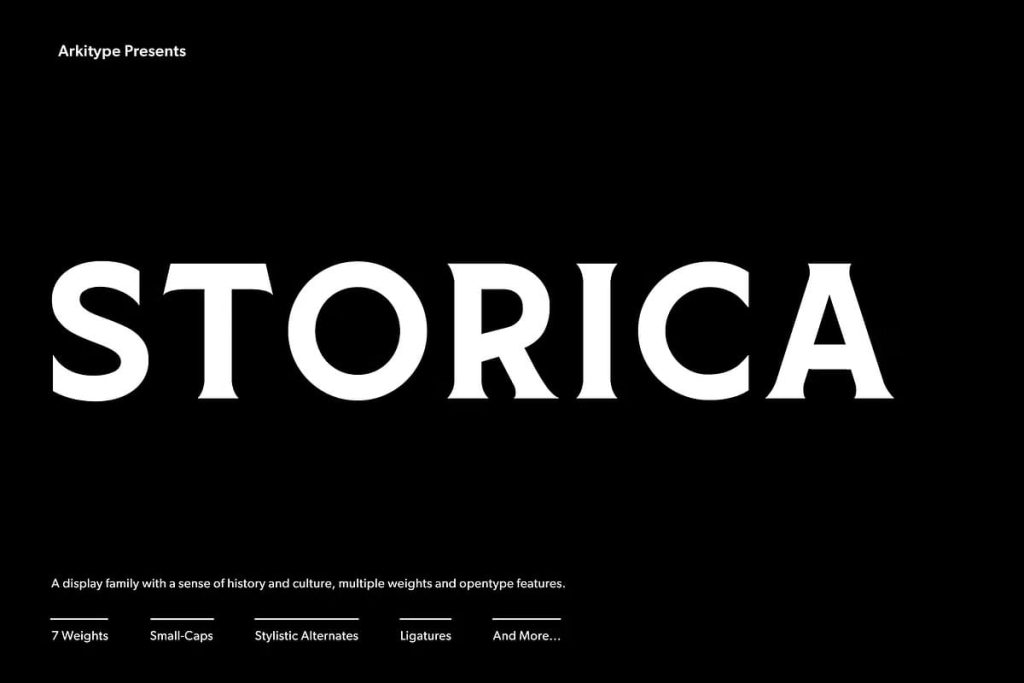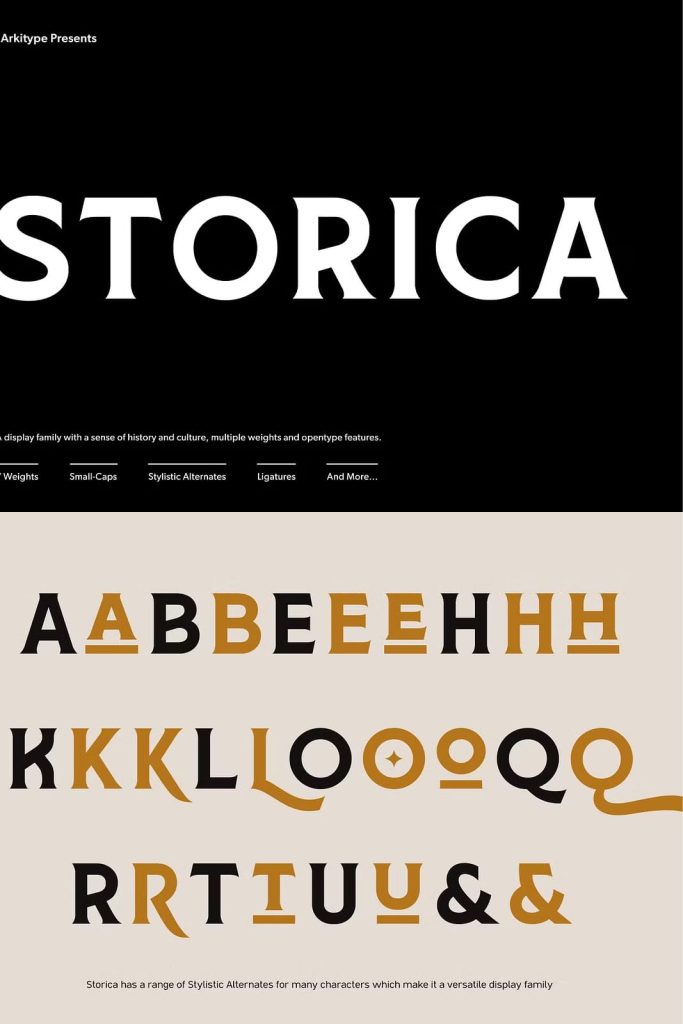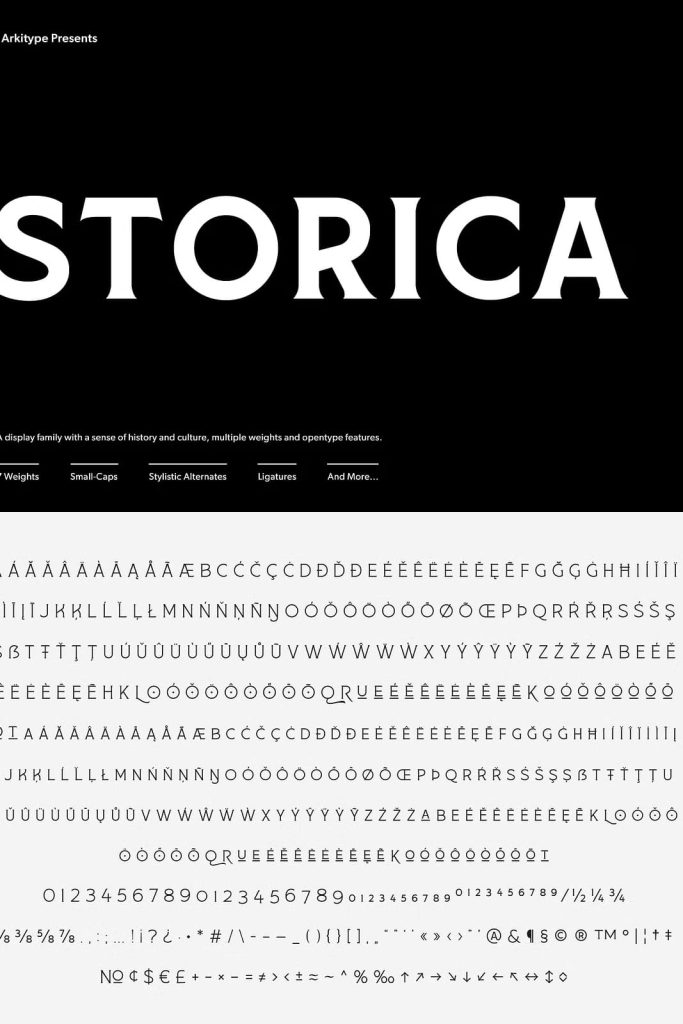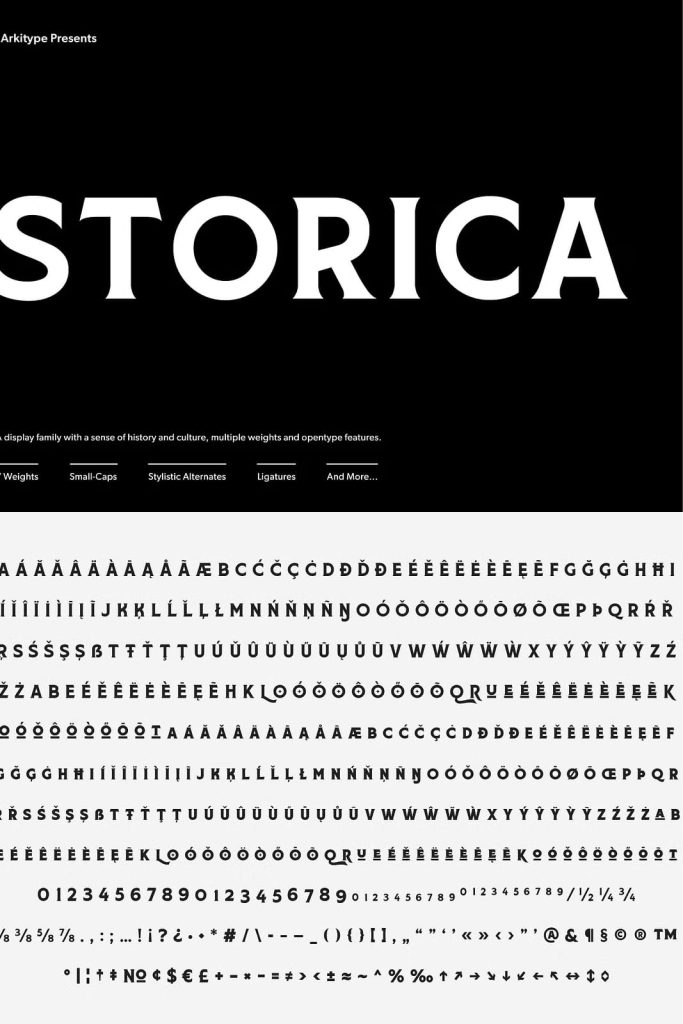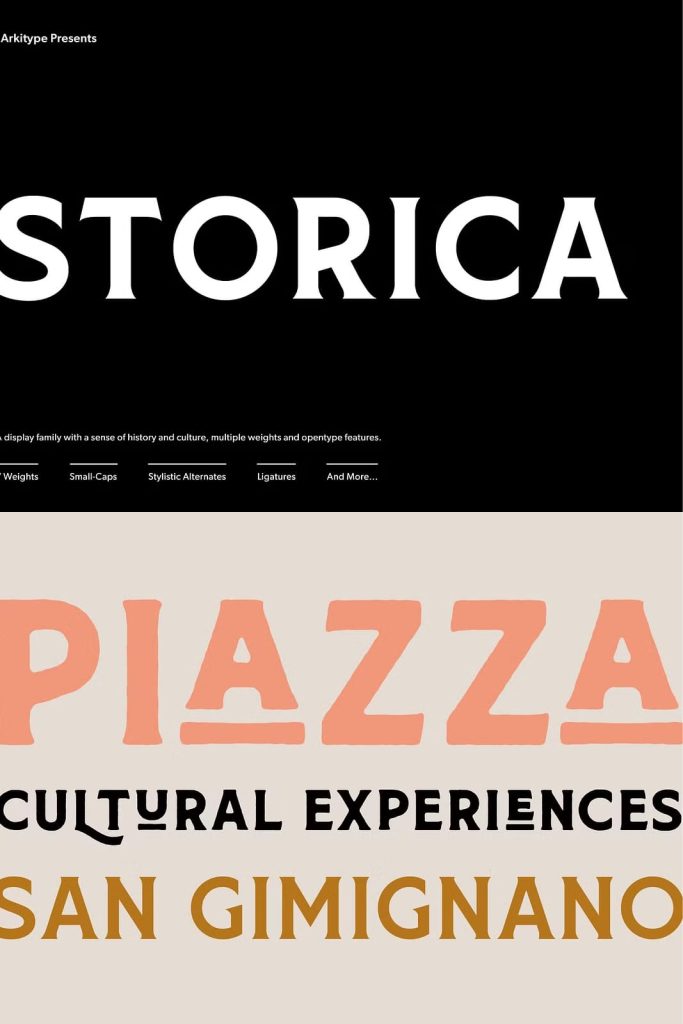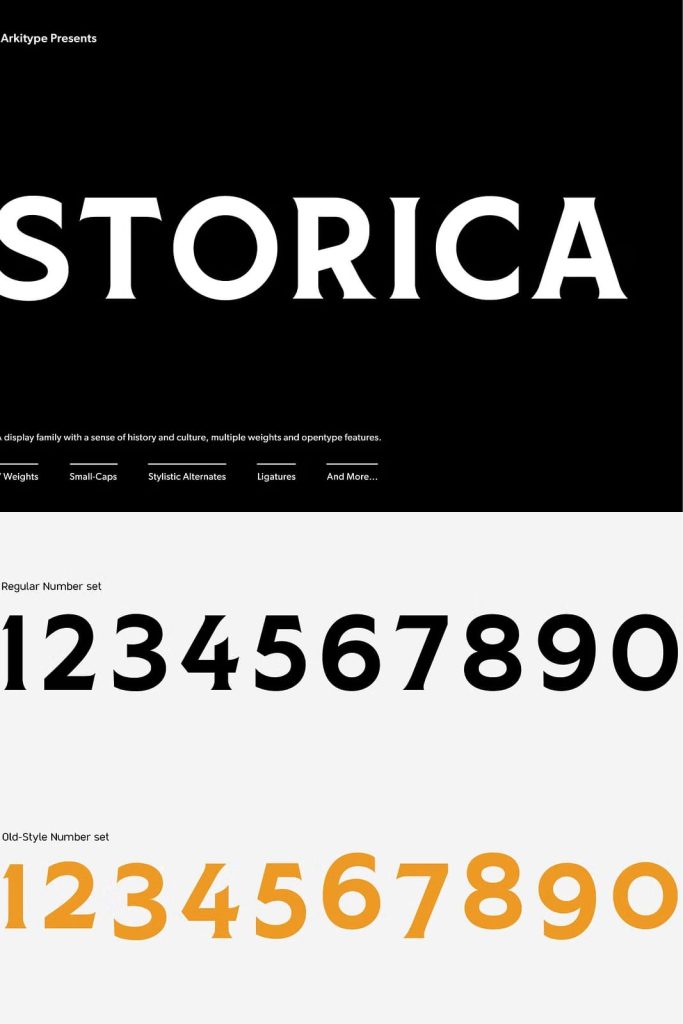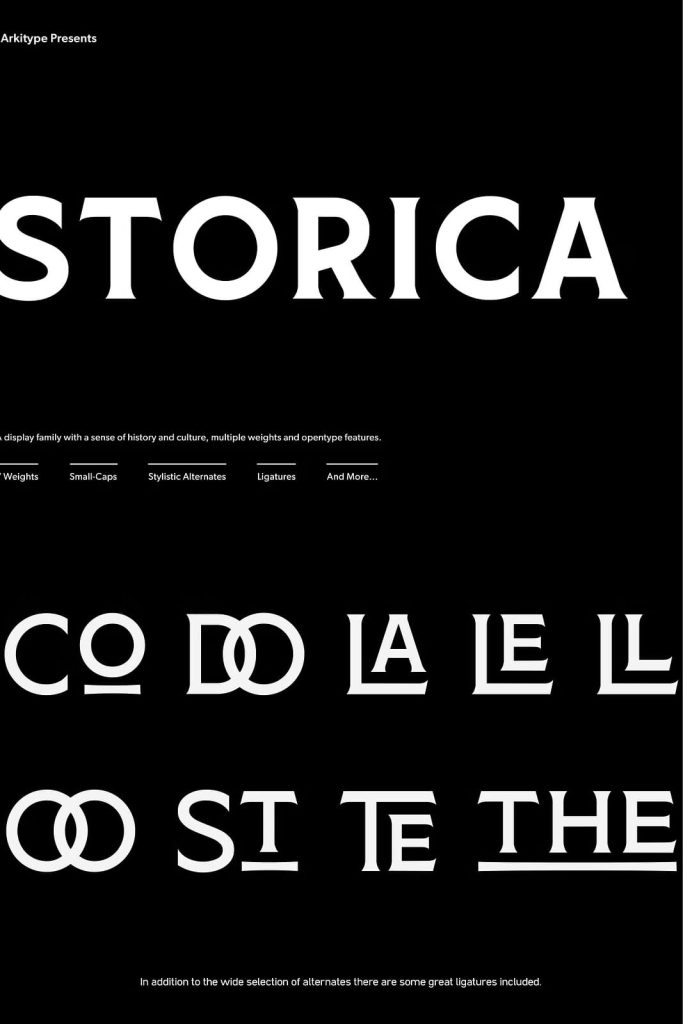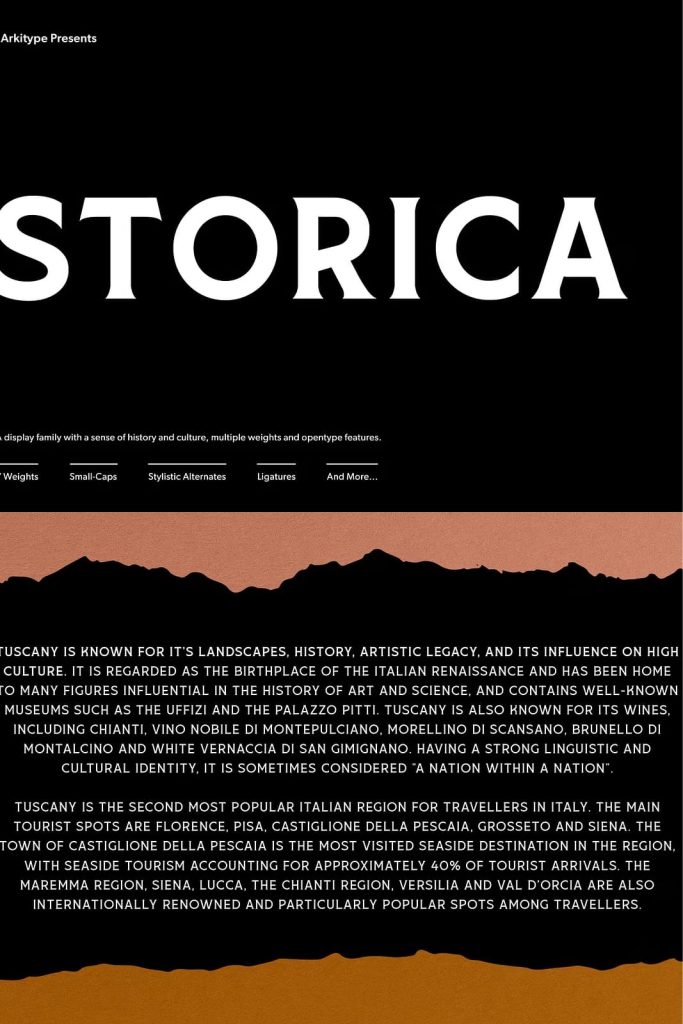
Storica is a display typeface with roman style serifs that create a sense of history and culture. The Storica family has 7 weights as well as a Heavy Rough and Heavy Hand version that give you an option for a more rustic or hand style approach to you projects.
The character set is expansive and has a wide range of language support. Storica has a great selection of Stylistic alternates, ligatures, small-caps, old-style numbers and more packed into the opentype features.